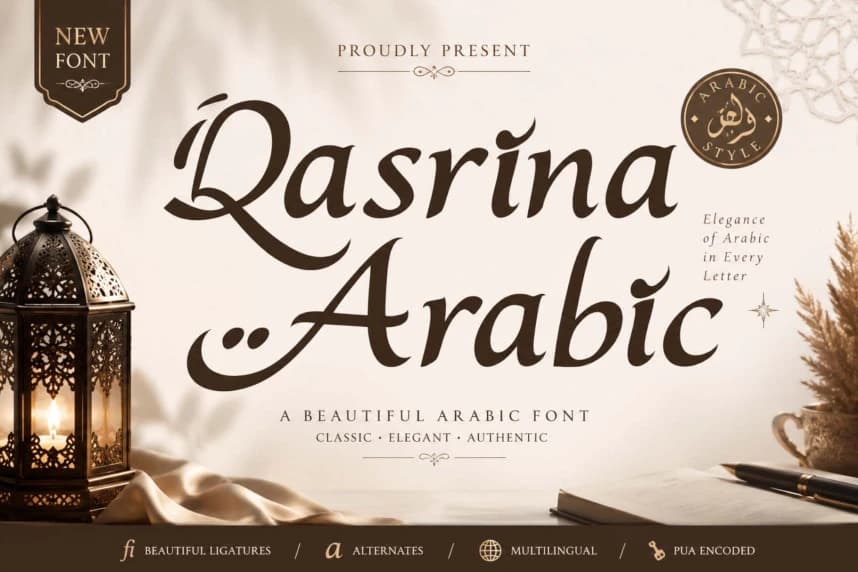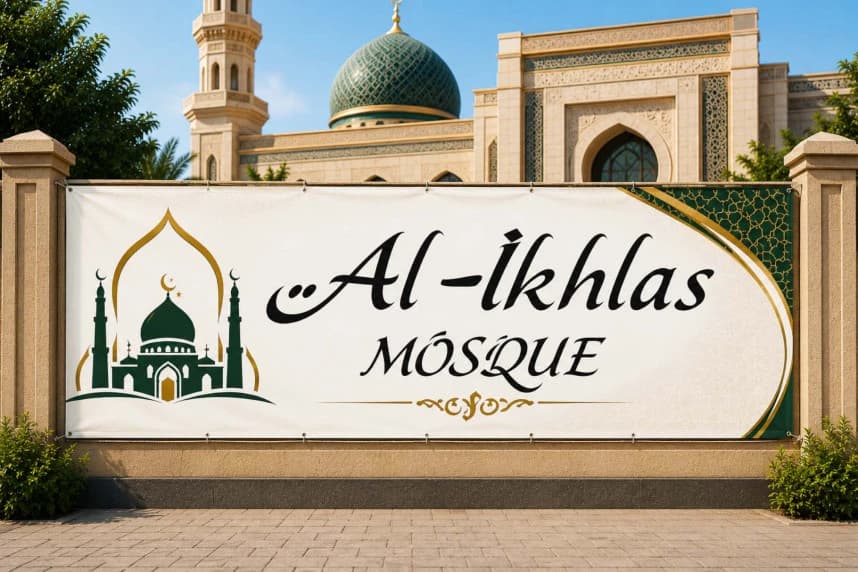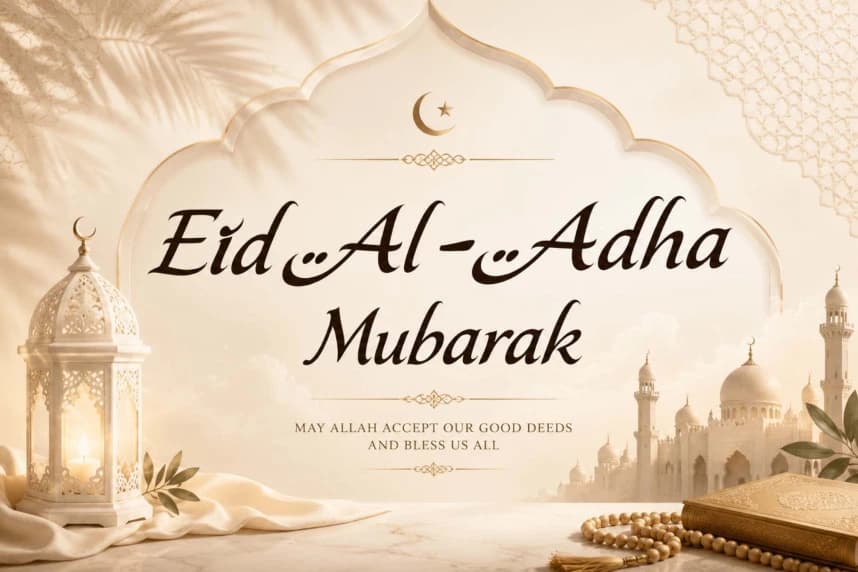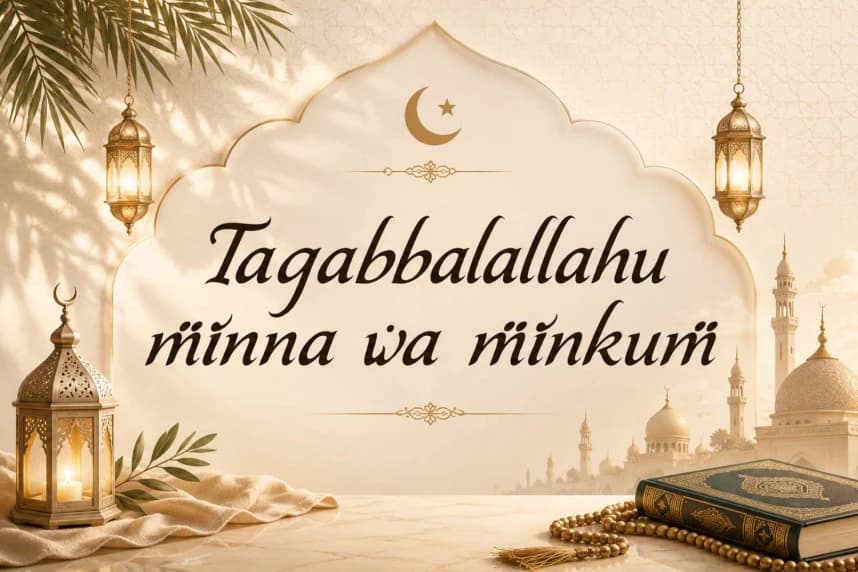
Qasrina Arabic Font
Qasrina Arabic Font is an elegant and unique Arabic display font. It comes in two styles: regular and italic. It features uppercase and lowercase letters, numerals, punctuations, and multilingual support.